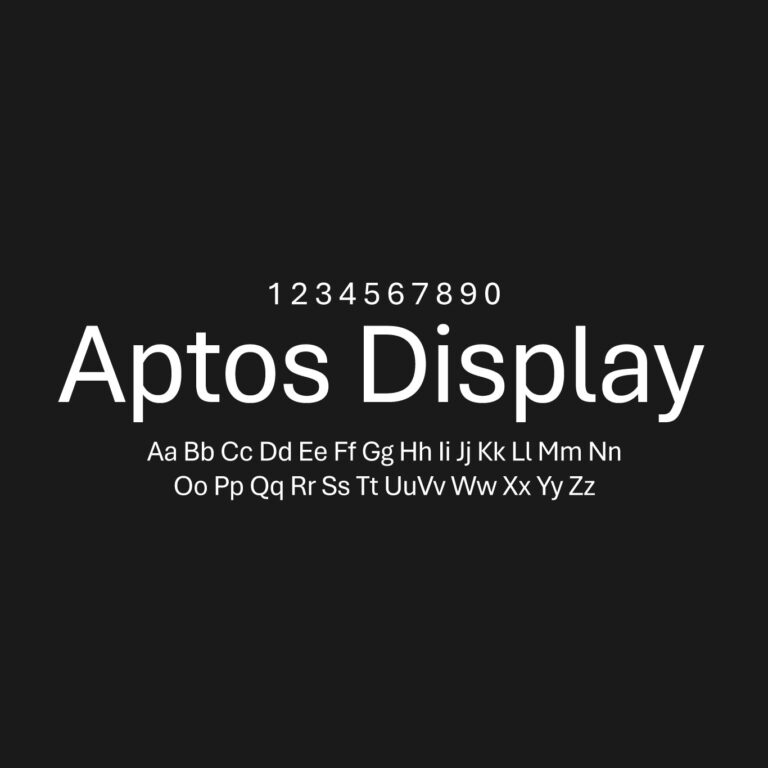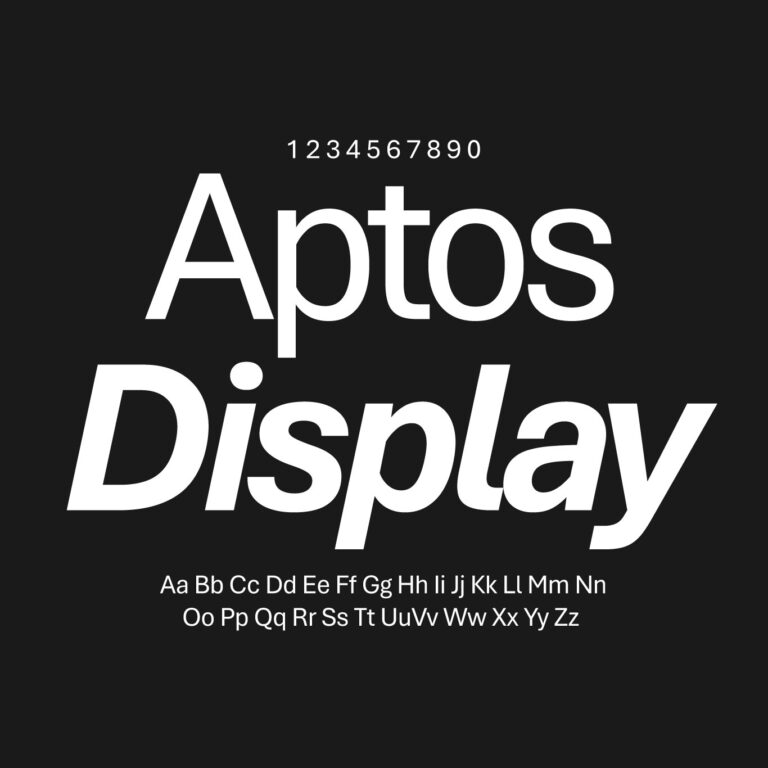
Aptos Display is part of the wider Aptos type system and is designed for larger text sizes where clarity, hierarchy and visual presence are important. It works well for PowerPoint title slides, report covers, proposal headings, website hero sections, editorial headlines, posters, banners, section dividers, corporate templates and professional communication layouts.
Aptos Display is best used for headings, short phrases and large-format text rather than long body copy. For a complete document or presentation system, you can pair Aptos Display with Aptos Sans for body text, Aptos Serif for more formal reading sections or Aptos Mono for technical layouts and tables.
Font Style: Display Sans Serif
Typeface System: Aptos
Designer: Steve Matteson
Developer: Microsoft
Aptos Display vs Aptos
Aptos Display is designed for larger typography, while the regular Aptos family is more suitable for everyday text and general document use. Aptos Display works better for headings, title pages, presentation covers, banners, and large visual text.
For a complete document or presentation system, use Aptos Display for major titles and section headings, Aptos for body text and interface-style layout elements, and Aptos Serif when a more formal editorial tone is needed.
Fonts similar to Aptos Display include Aptos, Segoe UI, Calibri, Helvetica Neue, Arial, Inter, Roboto, Open Sans, Source Sans 3, and Myriad Pro. These alternatives are useful for presentations, business documents, reports, UI layouts, dashboards, and clean professional typography.